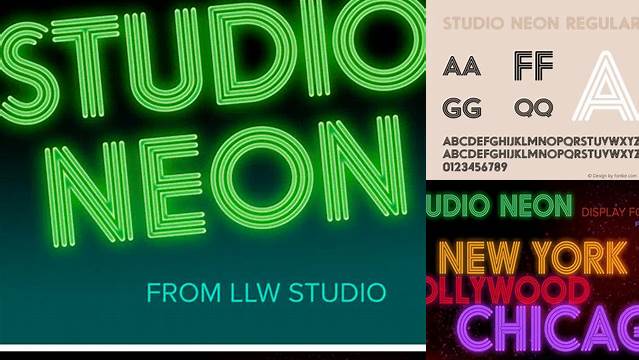
Studio Neon Font: Free Download Guide
Hey guys! Ever wanted to add that cool, glowing vibe to your designs? You know, that awesome retro-futuristic look that just screams awesome? Well, you're in the right place! Let's dive into everything you need to know about studio neon fonts and how you can snag a free download.
What is Studio Neon Font?
First things first, what exactly is a studio neon font? Think of those vibrant neon signs you see lighting up city streets at night. Studio neon fonts aim to replicate that glowing, electric aesthetic in digital typography. They often feature bright colors, a slightly blurred effect to mimic the glow, and a distinct modern yet retro feel. These fonts are perfect for posters, logos, social media graphics, and anything else where you want to make a bold statement. Using a great studio neon font can instantly grab attention and set the mood for your project.
The appeal of studio neon fonts lies in their ability to evoke a sense of nostalgia while still feeling contemporary. This makes them versatile for a wide range of design projects, from retro-themed events to cutting-edge digital campaigns. Whether you're creating a flyer for a vintage car show or designing a landing page for a tech startup, a well-chosen neon font can add that extra spark of visual interest. Remember, the key is to use these fonts judiciously; a little goes a long way when it comes to neon, so make sure your design remains balanced and readable.
When selecting a studio neon font, consider the overall tone and message of your design. A playful, bubbly neon font might be perfect for a children's event, while a sleek, minimalist neon font could be more appropriate for a high-end product launch. Don't be afraid to experiment with different styles and color combinations to find the perfect match for your project. And most importantly, have fun with it! Neon fonts are all about adding a touch of excitement and personality to your designs, so let your creativity shine.
Why Use a Studio Neon Font?
So, why should you even bother with a studio neon font? Well, there are tons of reasons! For starters, they are eye-catching. In a world of endless scrolling and information overload, you need something that grabs attention instantly. Studio neon fonts do exactly that. Their bright, glowing appearance naturally draws the eye, making your message stand out from the crowd. Plus, they add a unique stylistic flair that can elevate your designs from ordinary to extraordinary.
Another great reason to use a studio neon font is its versatility. Whether you're designing a vintage-inspired poster or a modern digital ad, neon fonts can adapt to a variety of themes and styles. They can be used to create a retro vibe, a futuristic feel, or even a touch of whimsy, depending on the specific font and how you use it. This flexibility makes them a valuable asset in any designer's toolkit.
Furthermore, studio neon fonts can help you create a strong brand identity. By incorporating a distinctive neon font into your logo and marketing materials, you can create a memorable and recognizable look that sets you apart from your competitors. A well-chosen neon font can communicate your brand's personality, whether it's playful, edgy, or sophisticated. So, if you're looking to make a lasting impression, consider adding a neon font to your branding arsenal.
When searching for studio neon fonts online, it's essential to verify the licensing terms to ensure you're using the font legally. Many free font websites offer fonts with different types of licenses, such as personal use, commercial use, or open source. Always read the fine print to avoid any potential legal issues down the road. If you're unsure about the license, it's best to err on the side of caution and contact the font designer or website administrator for clarification.
In addition to dedicated font websites, you can also find studio neon fonts on creative marketplaces like Creative Market and Envato Elements. While these platforms typically offer premium fonts for a fee, they occasionally have freebies or promotional offers that include neon fonts. Keep an eye out for these deals, as they can be a great way to snag high-quality fonts without spending a fortune. And don't forget to check out design communities and forums, where designers often share free resources and recommendations for fonts.
Top Websites for Free Neon Fonts
Let's get specific. Here are some of the top websites where you can find free studio neon fonts:
- DaFont: A massive archive of fonts, with a dedicated section for neon styles.
- FontSpace: Another great resource with a wide variety of free fonts.
Font Compatibility
Ensure that your font is compatible with your operating system and software version.